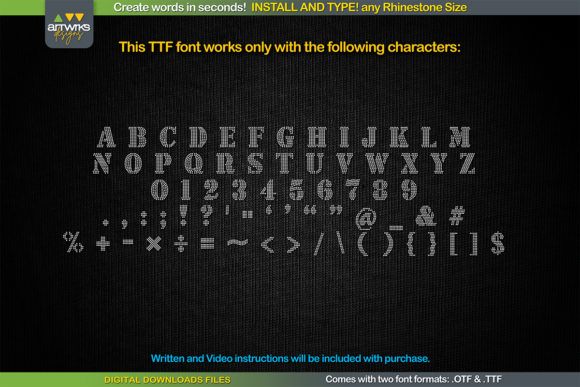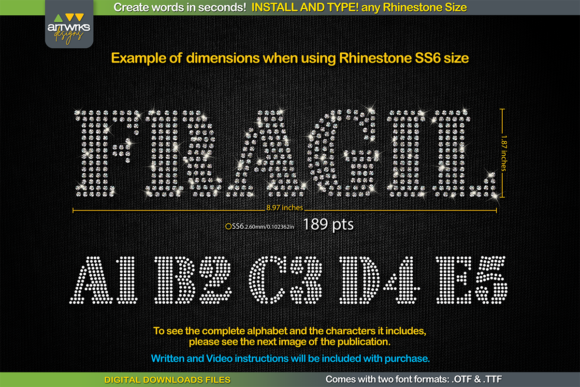
RHINESTONE TTF FONT: A Typeable Rhinestone Template Font
RHINESTONE TTF FONT is a unique and practical slab serif font designed specifically for creating rhinestone templates. This versatile typeface allows users to easily create words and designs with rhinestone patterns, making it perfect for various crafting projects.
Key Features of RHINESTONE TTF FONT
- Typeable Rhinestone Design: Allows quick creation of rhinestone patterns by simply typing.
- Perfectly Filled Letters: Each character is filled with rhinestone patterns or arranged for heat transfer vinyl.
Ideal Uses for RHINESTONE TTF FONT
This font is particularly well-suited for:
- Creating rhinestone T-shirt designs
- Heat transfer vinyl projects
- Customizable craft designs with rhinestone text
- Bling lettering for various applications
- Crystal hot fix rhinestone stencils
RHINESTONE TTF FONT is an excellent tool for crafters and designers looking to create rhinestone designs quickly and easily. Its ability to generate rhinestone patterns through simple typing makes it stand out in the world of craft typography. Whether you’re working on custom T-shirt designs, creating layouts for rhinestone transfers, or developing content that requires a touch of bling, this font offers the perfect blend of functionality and creativity.
Furthermore, RHINESTONE TTF FONT’s versatility allows it to shine in various crafting contexts. From vintage-inspired designs with a sparkly twist to more playful layouts that need a touch of glamour, this font can elevate your projects with ease.
In conclusion, RHINESTONE TTF FONT is a valuable addition to any crafter’s toolkit. Its ability to work well in both rhinestone projects and heat transfer vinyl designs showcases its flexibility. For those looking to add a dash of sparkle to their work, this font can even enhance themed creations with its unique, blingy style. Add it confidently to your favorite creations and let yourself be amazed by the outcomes it generates.